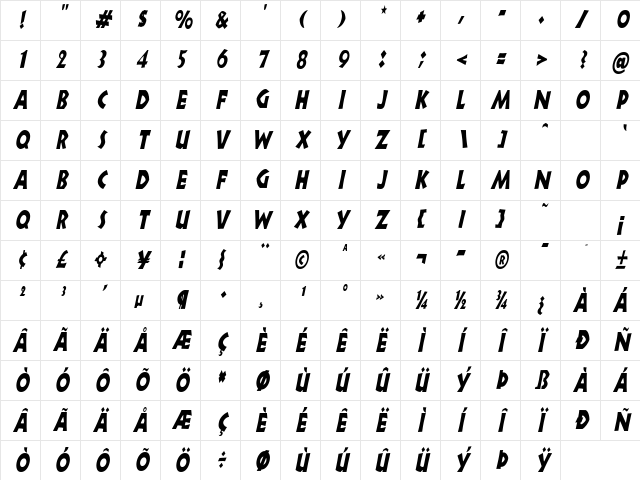
ZorbaCondensed Italic Free Font
ZorbaCondensed Italic
Style: Italic
Complete ZorbaCondensed Italic glyph index. Displaying only characters natively supported by ZorbaCondensed Italic font.
Design Context for ZorbaCondensed
ZorbaCondensed is a composed and adaptable typeface that performs quietly and consistently across a wide range of design contexts. The slanted form adds forward momentum and visual energy. Its narrow stance lets it pack a punch even in space-constrained designs.
A practical choice for tight layouts, multi-column editorial design, and space-efficient signage.
Pro Tip: Use ZorbaCondensed for emphasis, pull quotes, and subheadings where its slanted energy can add rhythm to the layout.